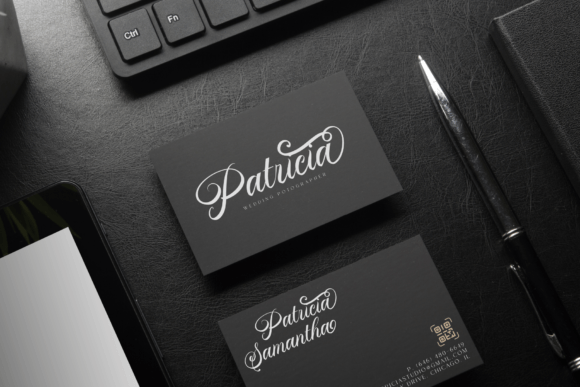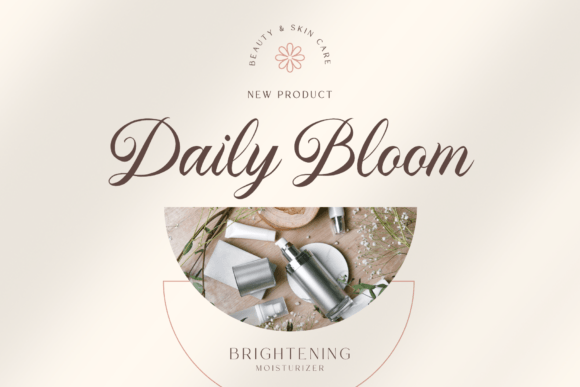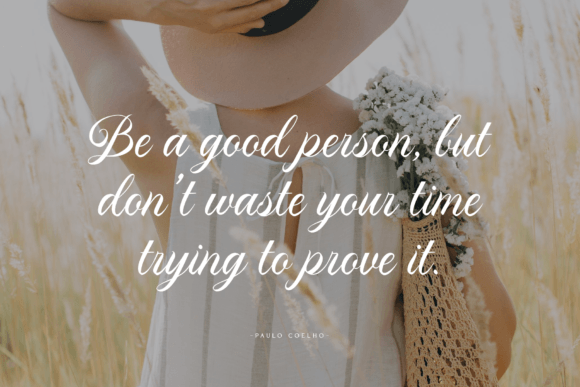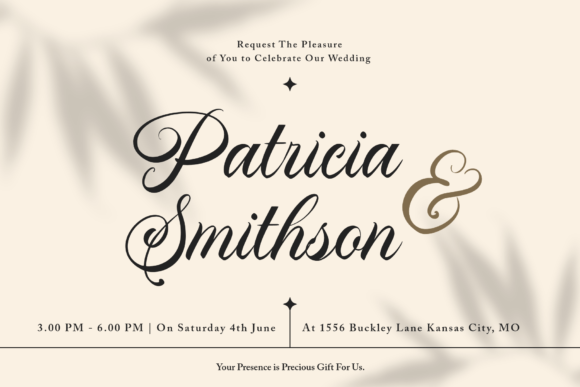
Introducing The Daybream: Elevate Your Designs with Sophistication and Elegance
In the world of typography, few fonts manage to capture the essence of luxury and elegance as effortlessly as The Daybream. This chic, modern calligraphy font is a masterpiece of design, boasting detailed swirls and graceful curves that instantly elevate any design project. Whether you’re working on invitations, branding, or decorative design, The Daybream is the perfect choice for those seeking to infuse their work with a touch of sophistication.
The Art of Elegance: A Closer Look at The Daybream
The Daybream is more than just a font – it’s an experience. Its stunning script weaves together traditional calligraphic elements with a keen modern edge, creating a truly unique visual identity. The font’s intricate swirls and curves are meticulously crafted to add a level of depth and complexity to any design, making it perfect for projects that demand attention to detail.
One of the standout features of The Daybream is its versatility. This font is not limited to a specific type of design project; rather, it can be used across a range of applications. Here are just a few examples of how The Daybream can be used:
• Invitations: Whether you’re planning a wedding, birthday party, or corporate event, The Daybream is the perfect choice for creating elegant and sophisticated invitations that set the tone for your special day.
• Branding: Establish your brand’s identity with a font that exudes luxury and refinement. The Daybream is ideal for logos, packaging, and marketing materials that require a high level of sophistication.
• Decorative Design: Add a touch of elegance to your decorative design projects, such as stationery, signage, and advertising materials. The Daybream’s unique blend of traditional and modern elements makes it perfect for a wide range of design applications.
What Sets The Daybream Apart
In a world where fonts are plentiful, The Daybream stands out from the crowd. Here are just a few reasons why this font is a cut above the rest:
• Timeless Design: The Daybream’s classic design ensures that it will remain stylish for years to come, making it a valuable addition to any designer’s toolkit.
• Adaptable: Whether you’re working on a digital project or a print design, The Daybream adapts seamlessly to any medium, ensuring that your work looks great in any context.
• Elegant and Refined: The Daybream’s sophisticated design makes it perfect for projects that demand a high level of elegance and refinement.
Harnessing the Power of The Daybream
To truly harness the power of The Daybream, designers and crafters should consider the following tips:
• Experiment with Pairings: The Daybream pairs beautifully with a range of fonts and design elements. Experiment with different combinations to find the perfect look for your project.
• Pay Attention to Details: The Daybream’s intricate swirls and curves are its standout feature. Pay attention to details and ensure that your design does justice to this beautiful font.
• Use it Sparingly: While The Daybream is a stunning font, it can be overwhelming if overused. Use it sparingly to create a lasting impact.
The Daybream is a true masterpiece of modern calligraphy. Its elegant design, versatility, and timeless appeal make it the perfect choice for designers and crafters seeking to elevate their work. Whether you’re working on invitations, branding, or decorative design, The Daybream is sure to make a lasting impression. With its unique blend of traditional and modern elements, this font is sure to become a staple in any designer’s toolkit.